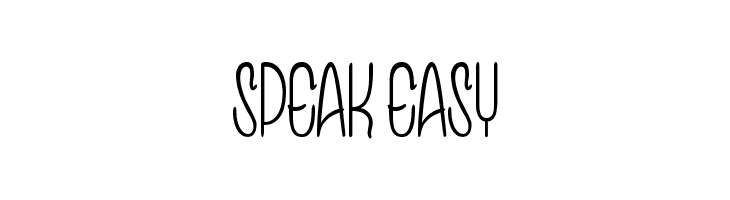
A playful and whimsical font with exaggerated curves and quirky letterforms.
A playful, bold font with a whimsical, hand-drawn style.
A dynamic, flowing script font with elegant, cursive letterforms.
An artistic, calligraphic font with flowing lines and decorative flourishes.
A playful, bold font with rounded, bubbly characters perfect for fun designs.
A dynamic, brush-stroke font with an edgy, hand-drawn appearance.
A bold, brush-style font with a dynamic and informal appearance.
A bold, geometric outline font with a modern, blocky design.
Ornamental symbol font with geometric and decorative motifs.
Cartoonish, character-based display font with comic-style illustrations.
A dynamic brush-style font with fluid, cursive strokes and varying thickness.
A playful, handwritten font with rounded, elongated characters.
Cartoonish, decorative font with each character as a unique illustrated face.
A decorative font with diverse arrow designs and comic-style text elements.
A bold, blocky font with sharp angles and high contrast, perfect for impactful designs.
Cartoon face glyphs form a bold, playful decorative font.
A playful, rounded font with bold, bubbly characters.
A bold, textured font with a playful and energetic style.
An elegant and decorative script font with flowing, interconnected letters.
A bold, flame-themed decorative font perfect for dramatic headlines.
A playful, casual handwritten font with smooth, flowing lines.
A hand-drawn, sketch-like font with a casual and informal feel.
A flowing, elegant script font with a sophisticated and stylish appearance.
A dynamic and elegant script font with flowing cursive letters.
An elegant and decorative font with intricate swirls and loops.
A playful, handwritten font with a casual and friendly style.
A whimsical and artistic font with elongated, curvy letterforms.
An elegant, whimsical font with flowing, cursive-like strokes and intricate loops.
An elegant, whimsical script font with decorative curls and loops.